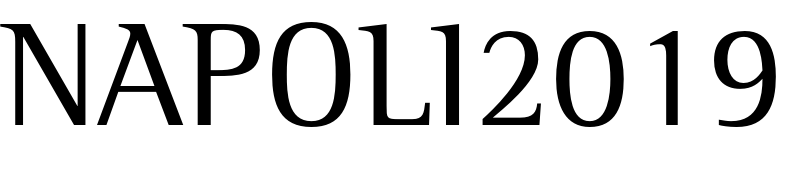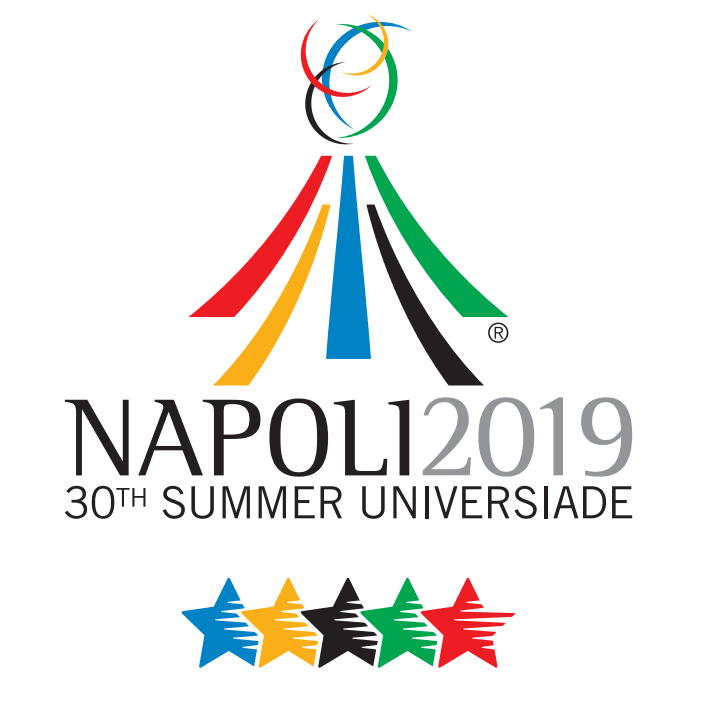
2019 Summer Universiade Font
Fonts in UseThe Universiade was an international multi-sport event held in Naples, Italy from July 3 to July 14, 2019. Over 9,300 athletes from 118 countries competed in 18 different sports.
The logo for the sporting event primarily features the Rotis Semi Serif 55 Roman, typeface, which is a serif font from the Rotis super font family created by Otl Aicher in 1988. Additionally, the sans-serif typeface used in the logo is Trade Gothic LT Regular.